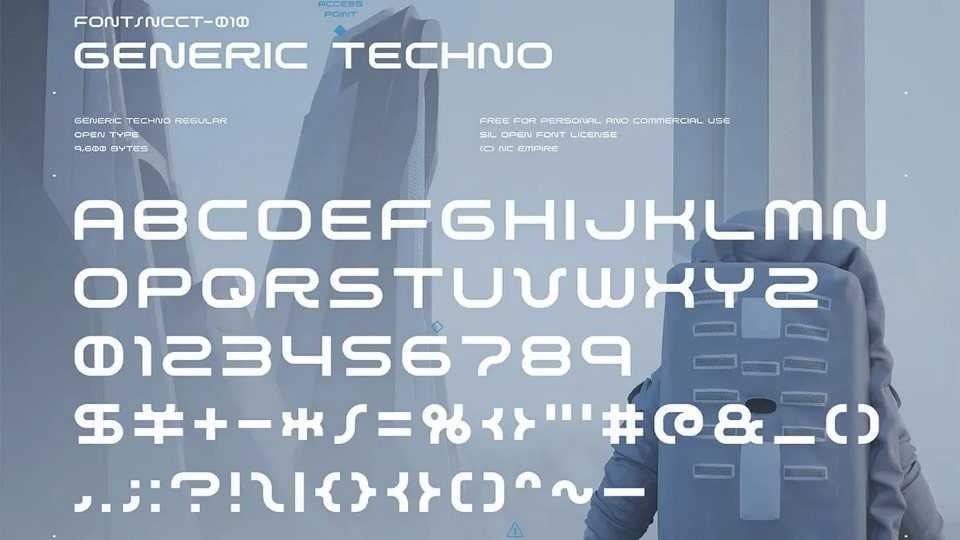
Download Generic Techno font, a wide geometric typeface with a clean, dynamic appearance. Generic Techno font is suitable for headlines, posters, logos, large typography, everything related to cars and technology and anything that can be futuristic and meaningful.
Designer: NC Empire